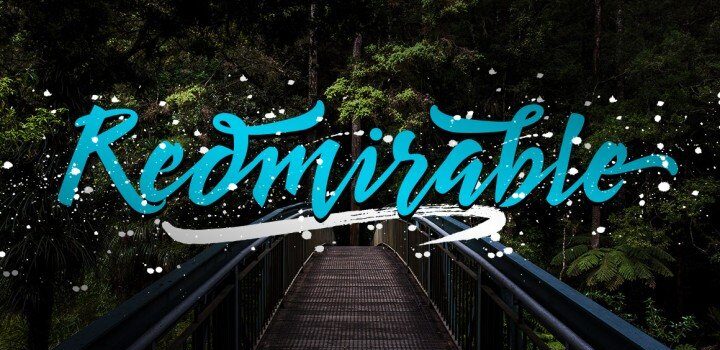
redmirable
Redmirable Font – Free Download Introduction to Redmirable Font Redmirable is a remarkably versatile script, and can be used for a large range of project types. 📸 Preview Gallery 6 images 📌 Product Name Redmirable Font 👤 Author Mindtype Co.